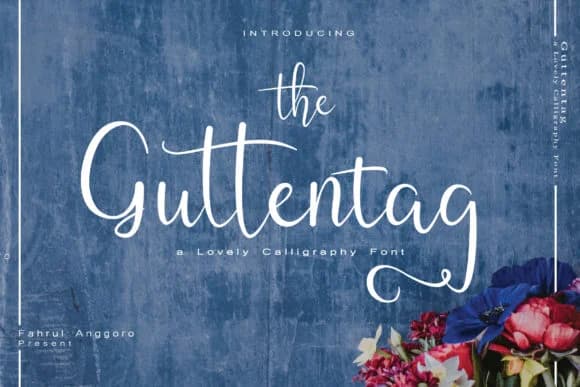
Picture a designer working on wedding invitations who wants every letterform to feel personal and thoughtful. That's when Guttentag, created by Fahrul Anggoro, becomes essential. This calligraphy script brings genuine hand-drawn warmth to formal occasions without sacrificing readability or polish. The letterforms flow with natural grace, with each stroke carefully balanced. The result works equally well on luxury wedding invitation suites, boutique skincare packaging, restaurant menu covers, and any project where elegance matters. It reads clearly at display sizes and holds together on smaller text, maintaining its decorative character throughout the entire character set.
Beyond formal events, this script shines on monogrammed stationery, personalized thank-you cards, and any branding that needs authentic human touch. Coffee shop menus, Etsy product graphics, and small-business logos all benefit from its approachable formality. Whether you're setting a single decorative monogram or filling a full invitation suite, the letterforms scale smoothly and stay consistent. That consistency and readability at all sizes make Guttentag a versatile choice for both headline and body text applications.
Guttentag Font is a script font that shines as a display or heading face. Pair it with a clean sans-serif or serif font for body text β the contrast creates a clear hierarchy while the two styles stay balanced and easy to read.